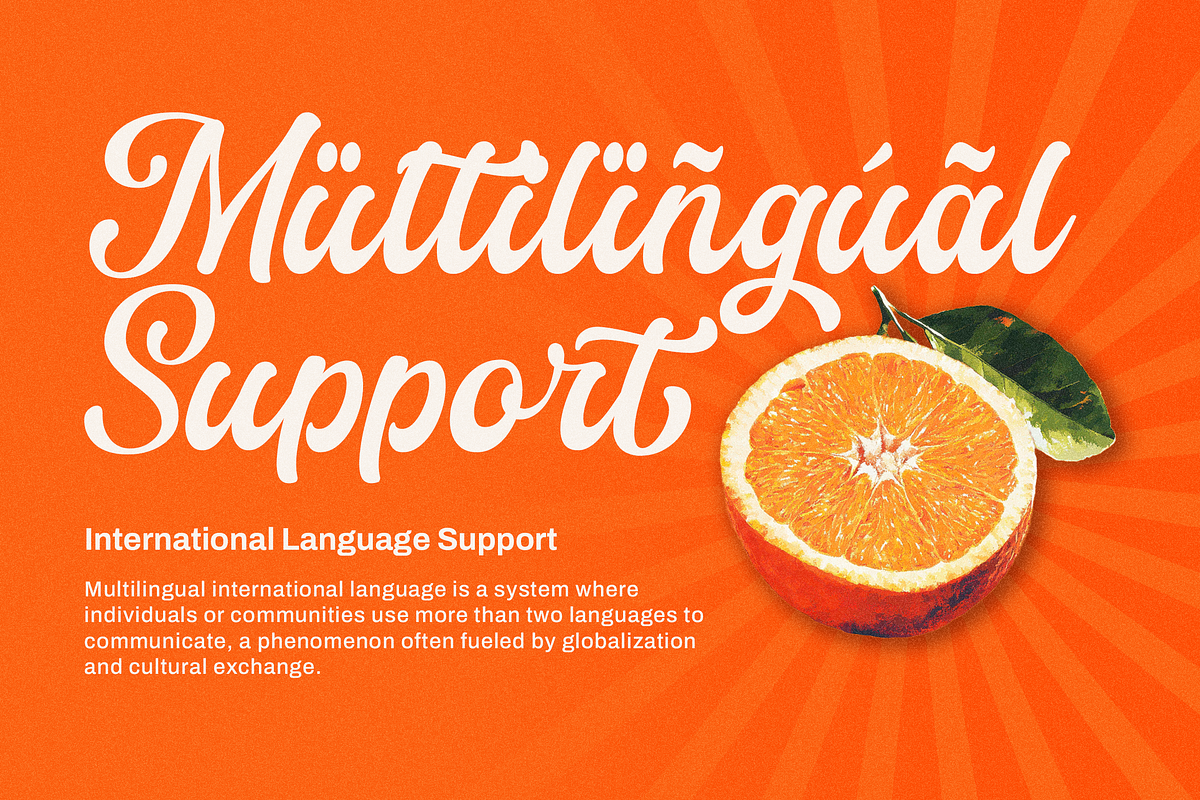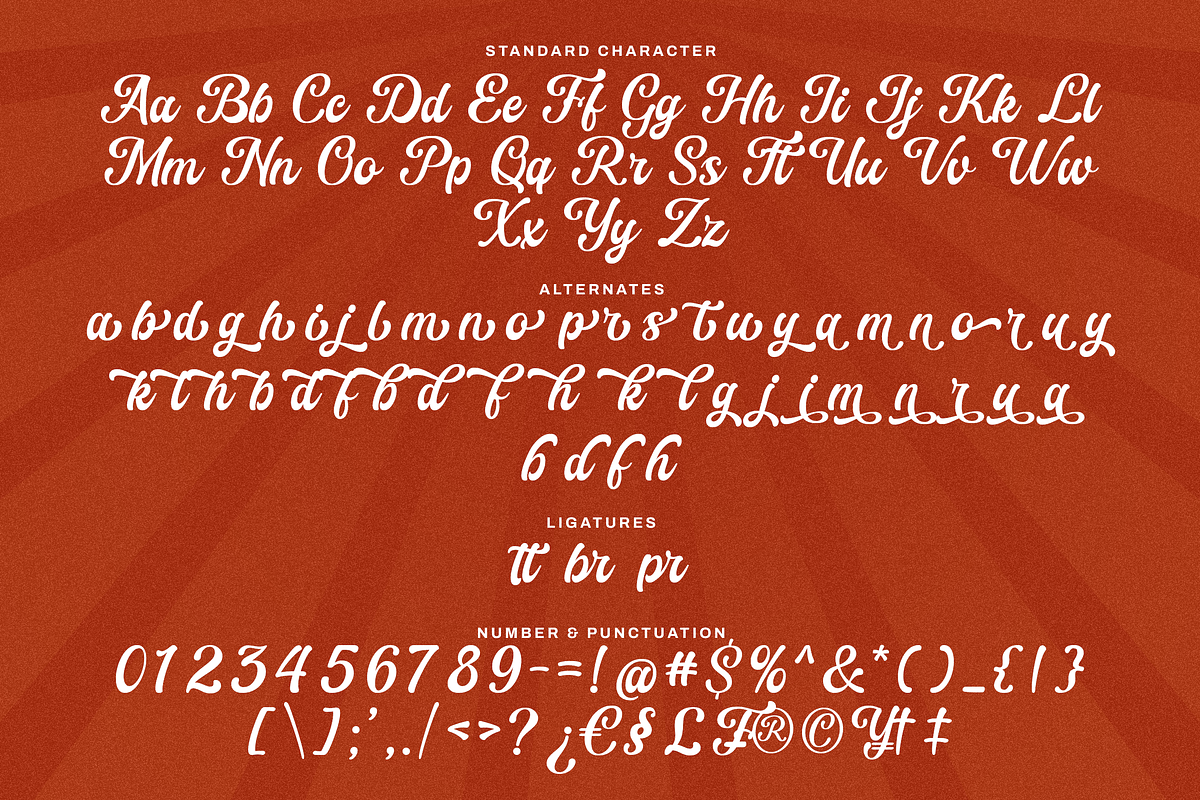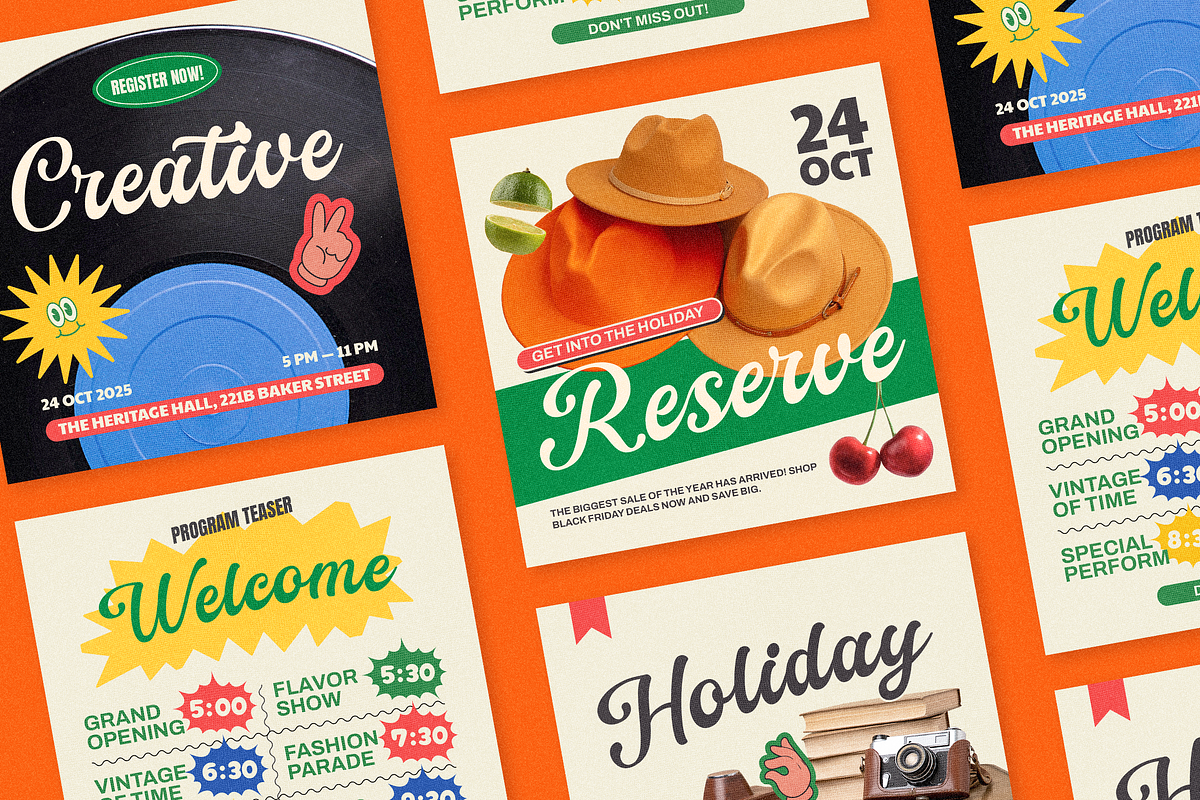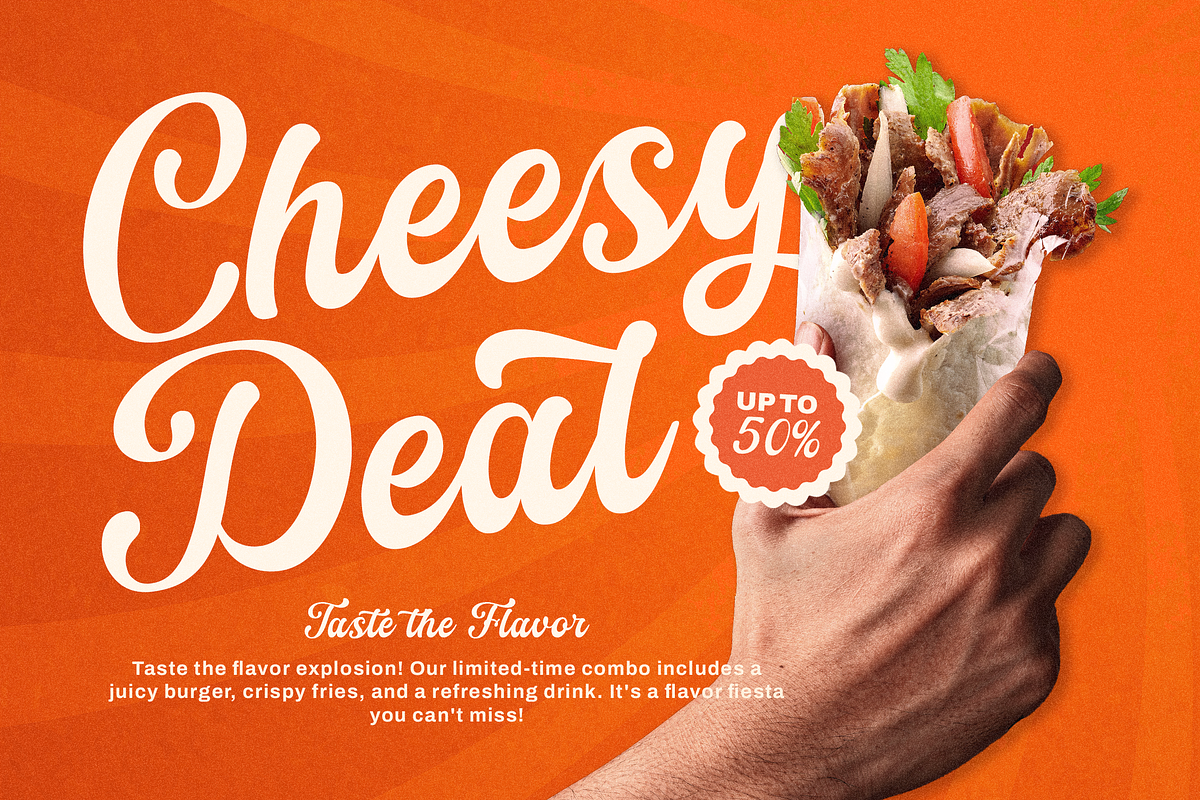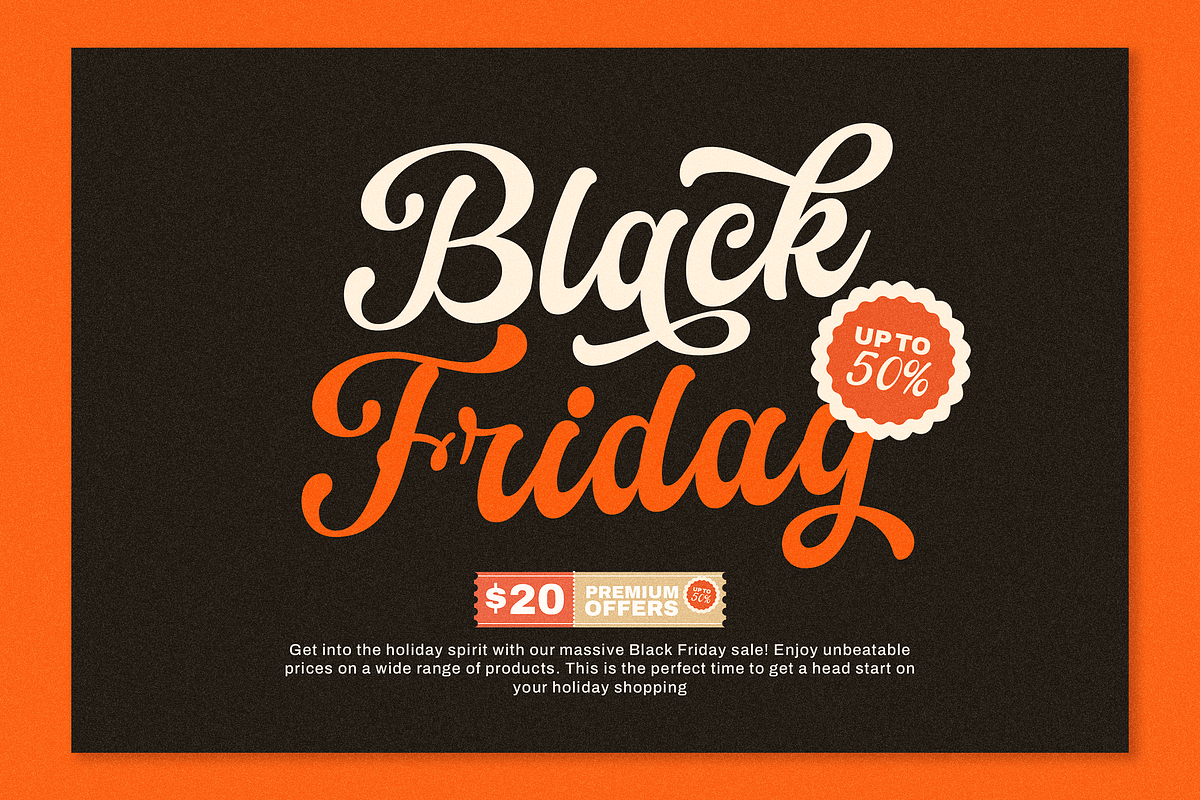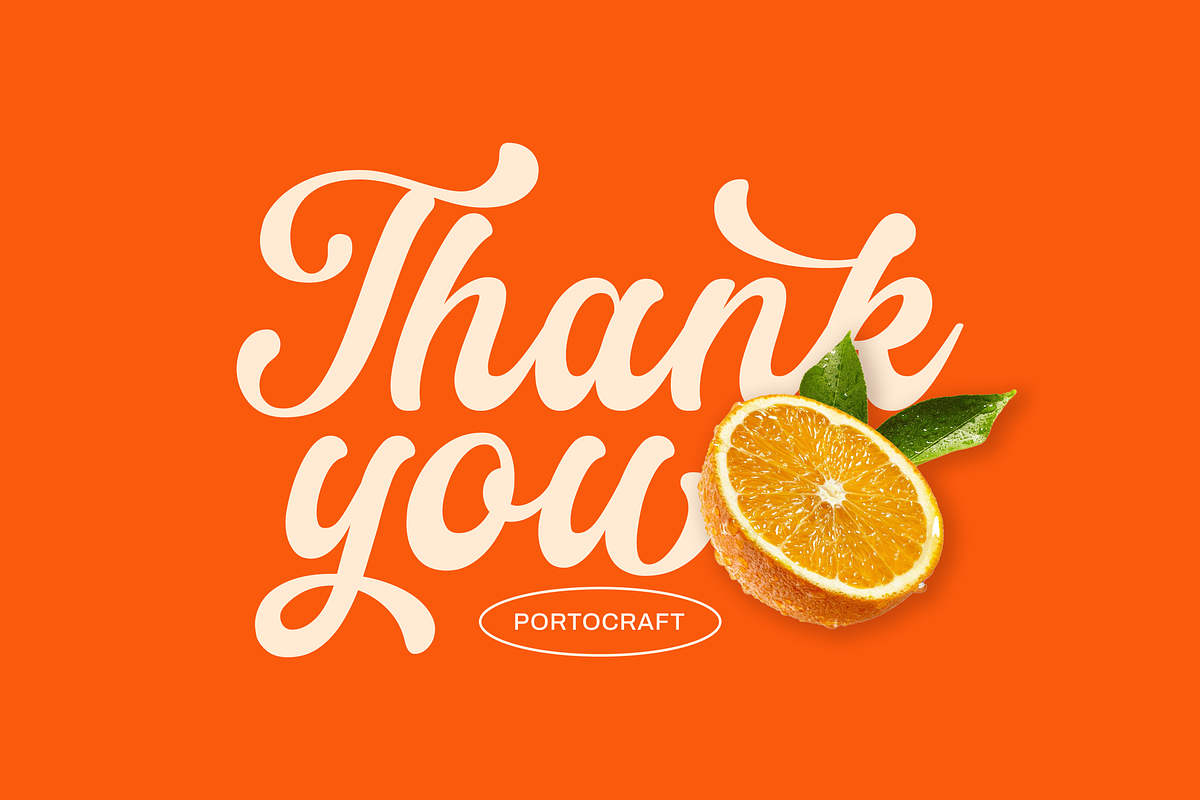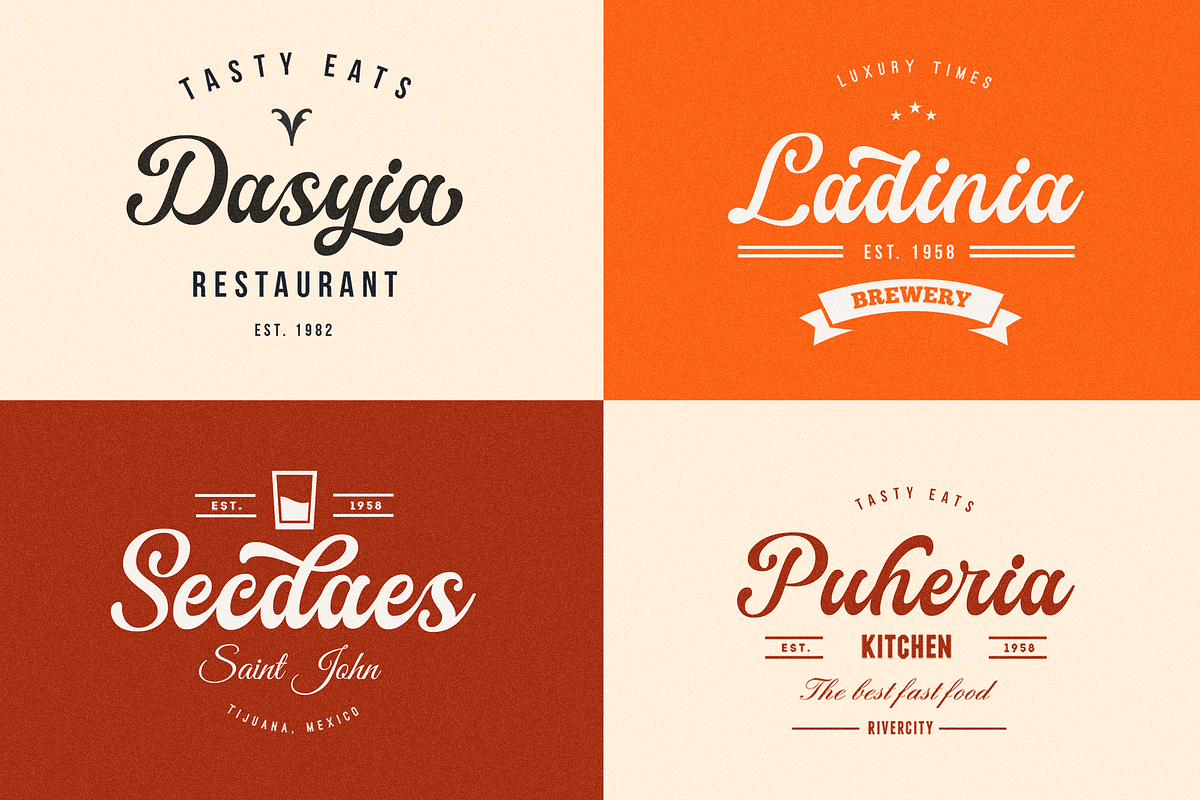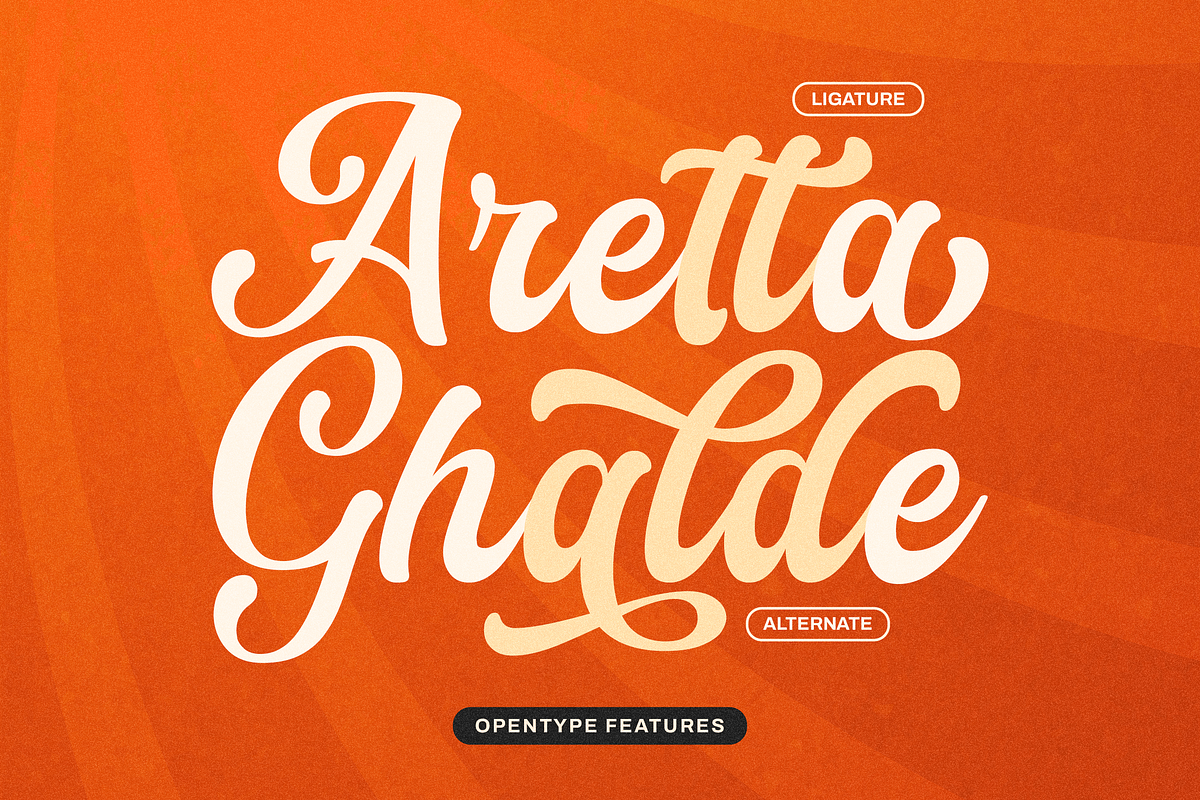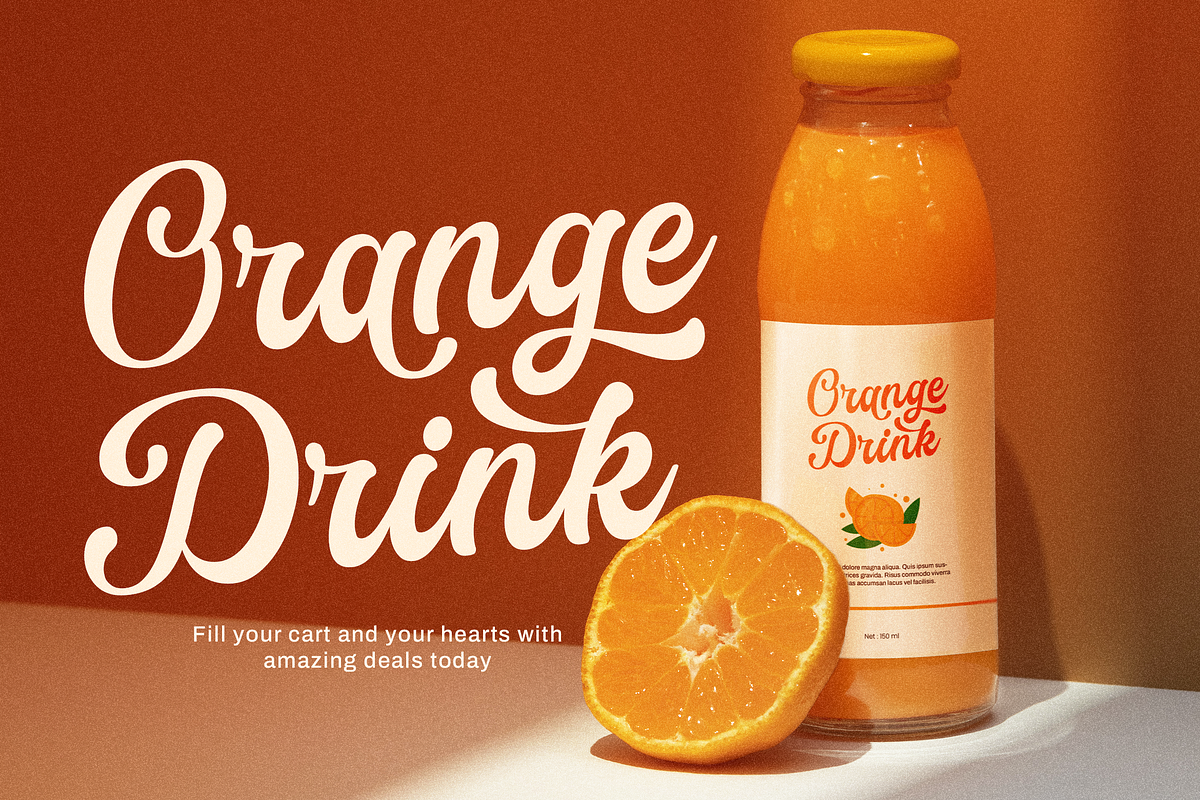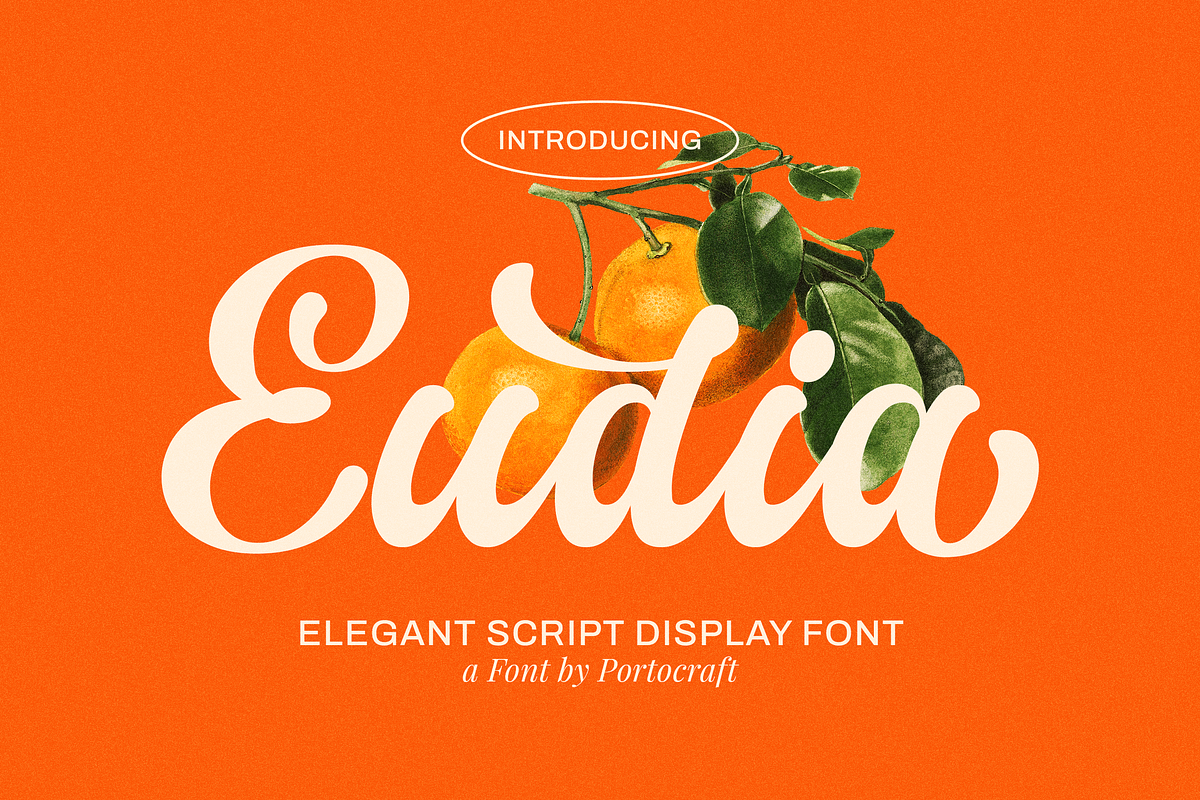
Eudia Elegant Display Script
Add a touch of timeless sophistication and vintage warmth to your designs with Eudia, a beautifully crafted elegant script display font by Portocraft. Combining smooth, fluid cursive strokes with a bold display presence, Eudia brings a retro-modern flair that feels uniquely organic, nostalgic, and high-end all at once.
Its thick, expressive letterforms and graceful swashes make it an exceptional choice for standout typography that requires both readability and strong artistic character.
Best Used For:
Branding & Logo Design: Ideal for lifestyle brands, artisanal businesses, boutique logos, and organic product identities.
Packaging & Label Design: Perfect for food and beverage packaging (like juice, wine, or confectionery), cosmetics, and wellness products.
Fashion & Editorial: Adds a chic, nostalgic touch to magazine layouts, lookbooks, clothing tags, and retail advertisements.
Social Media & Advertising: Highly eye-catching for bold Instagram quotes, Pinterest graphics, web banners, and promotional campaigns.
Posters & Stationery: Excellent for retro-themed event posters, greeting cards, elegant invitations, and custom merchandise.
Full uppercase and lowercase script character set
Numbers and comprehensive punctuation
Stylistic alternates and ligatures for a custom hand-lettered feel